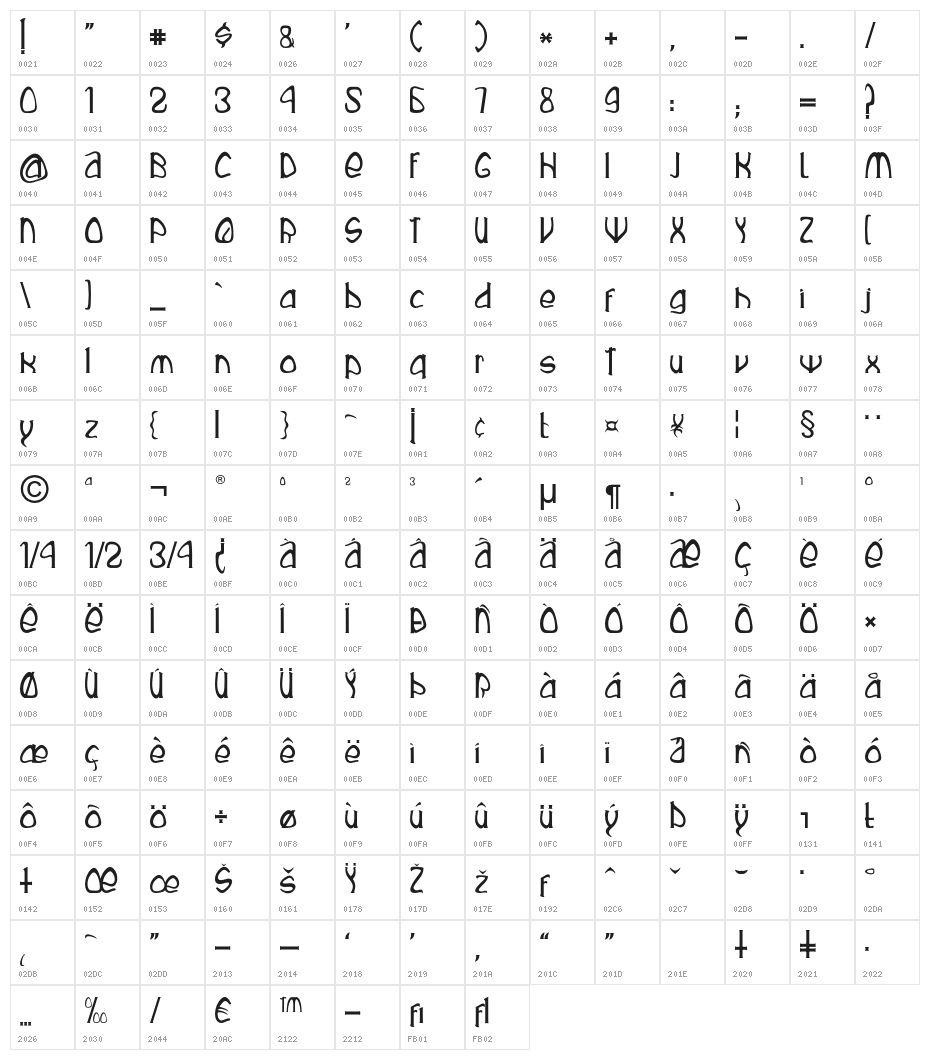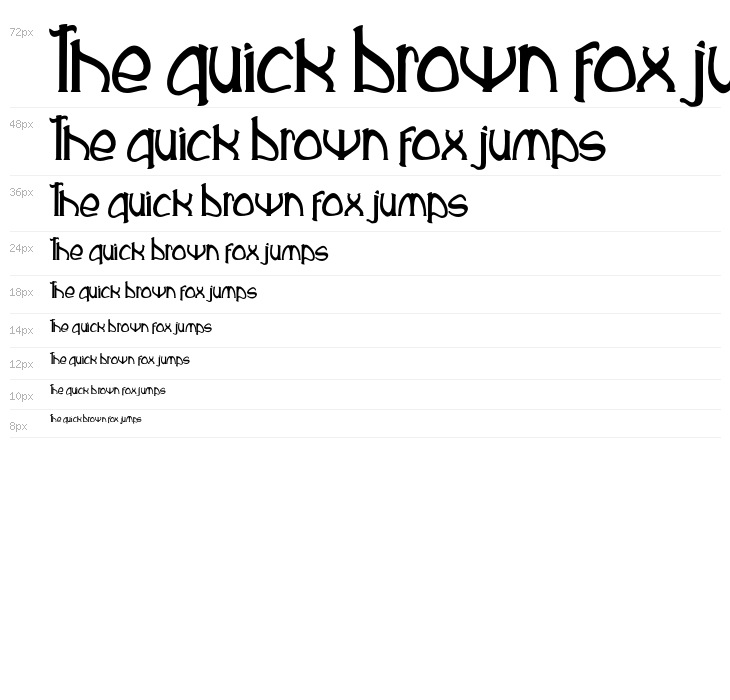
Rustika Font
| Stile generale | Modern, Artistic |
| Caso d'uso | Logos, Posters, Creative Branding |
| Progetti proposti | Ideal for creative projects such as posters, logos, and branding materials that require a distinctive and artistic touch. |